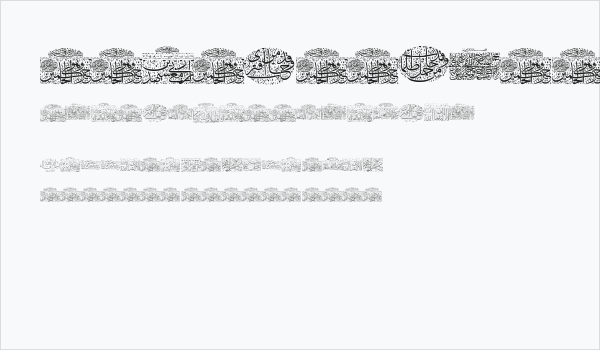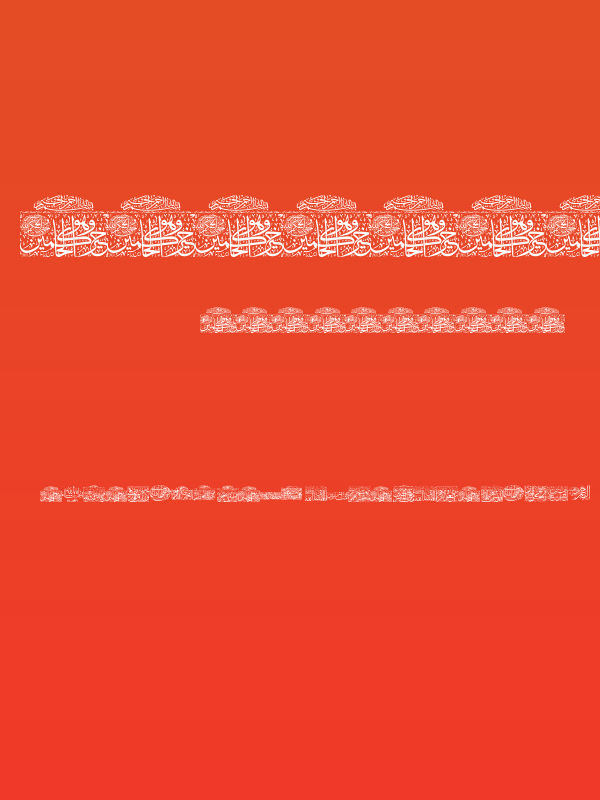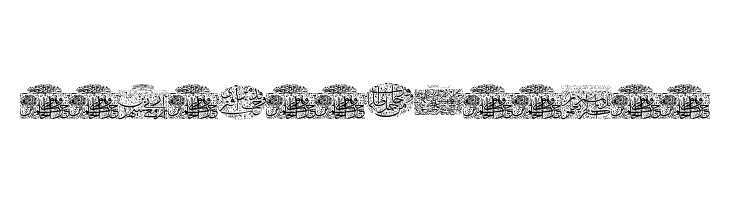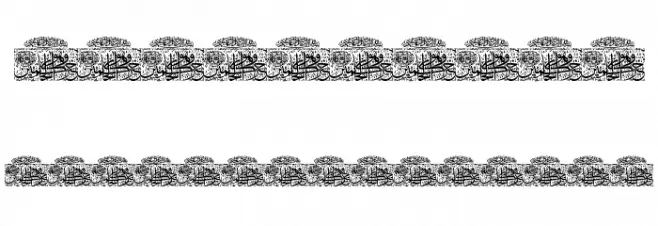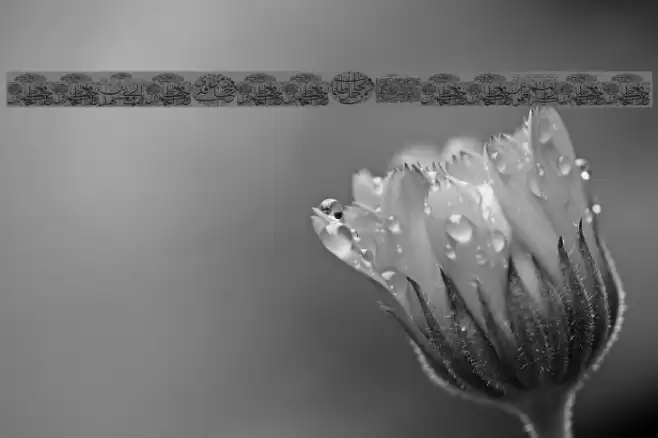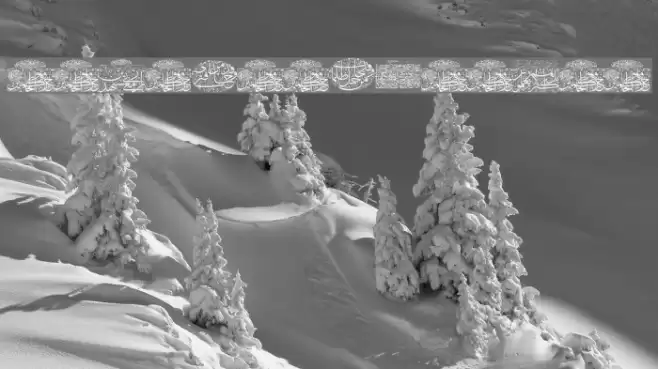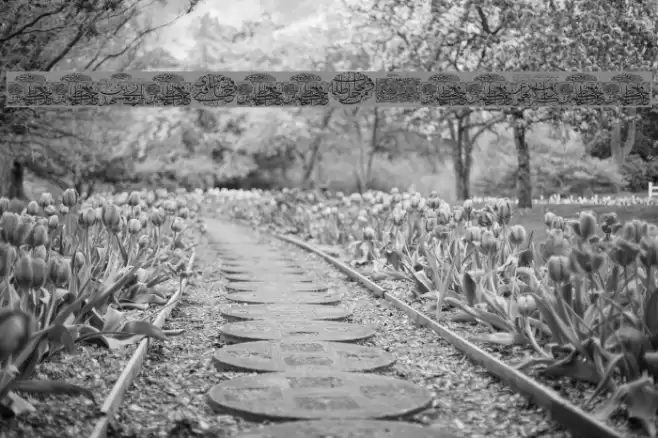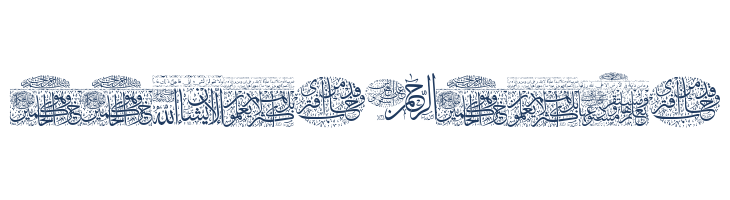
Aayat Quraan 9 Font
✎ Calligraphic
Aayat Quraan 9 Description
Highly decorative Arabic calligraphy with intricate ornamental flourishes and dense, interconnected letterforms, featuring elaborate diacritical marks and a strong sense of rhythm and symmetry throughout the text.
| Categories | Calligraphic |
| Width | Condensed |
| Overall Style | Decorative, Traditional, Religious |
| Use Case | Religious texts, Borders, Certificates, Art pieces |
| Proposed Projects | Religious manuscripts, ceremonial documents, architectural inscriptions, decorative borders, cultural event materials. |